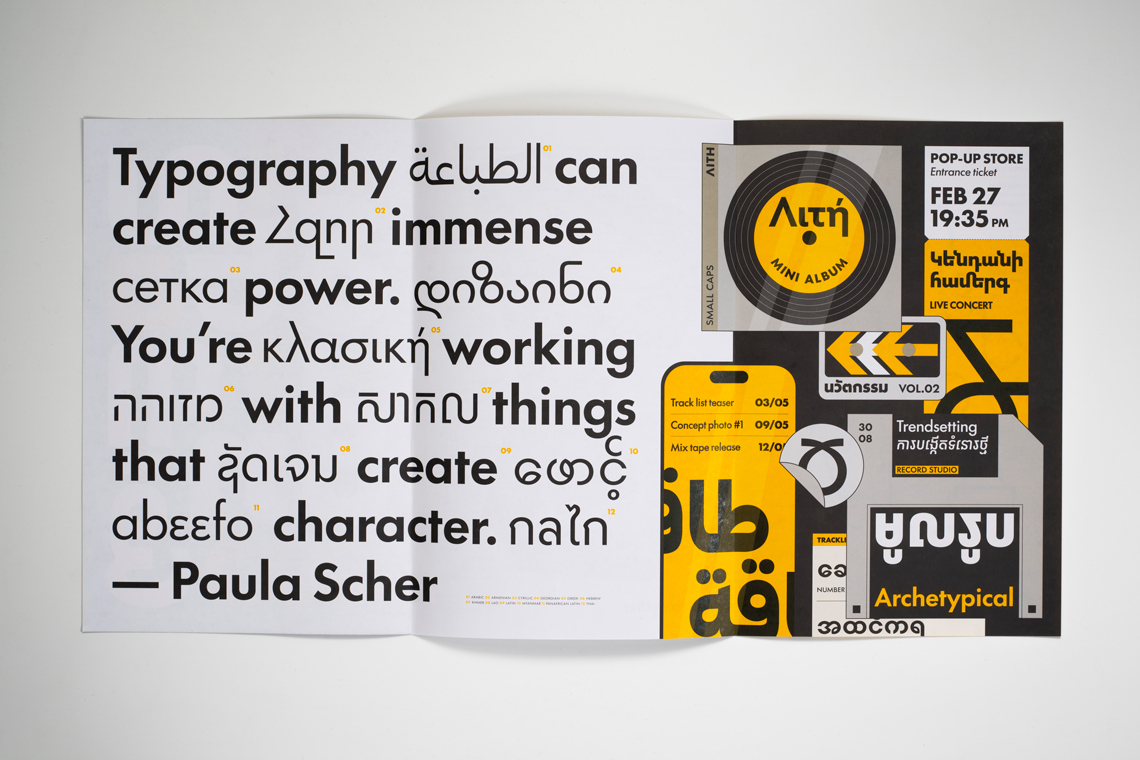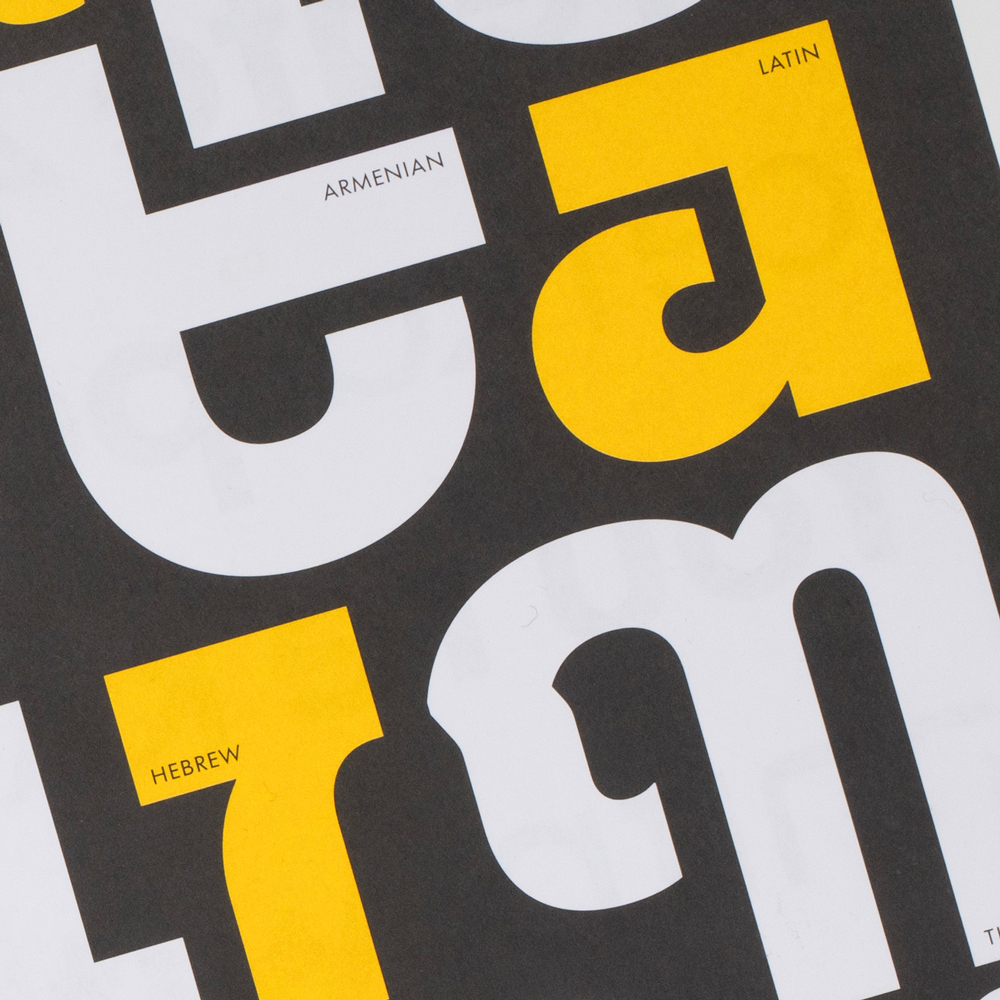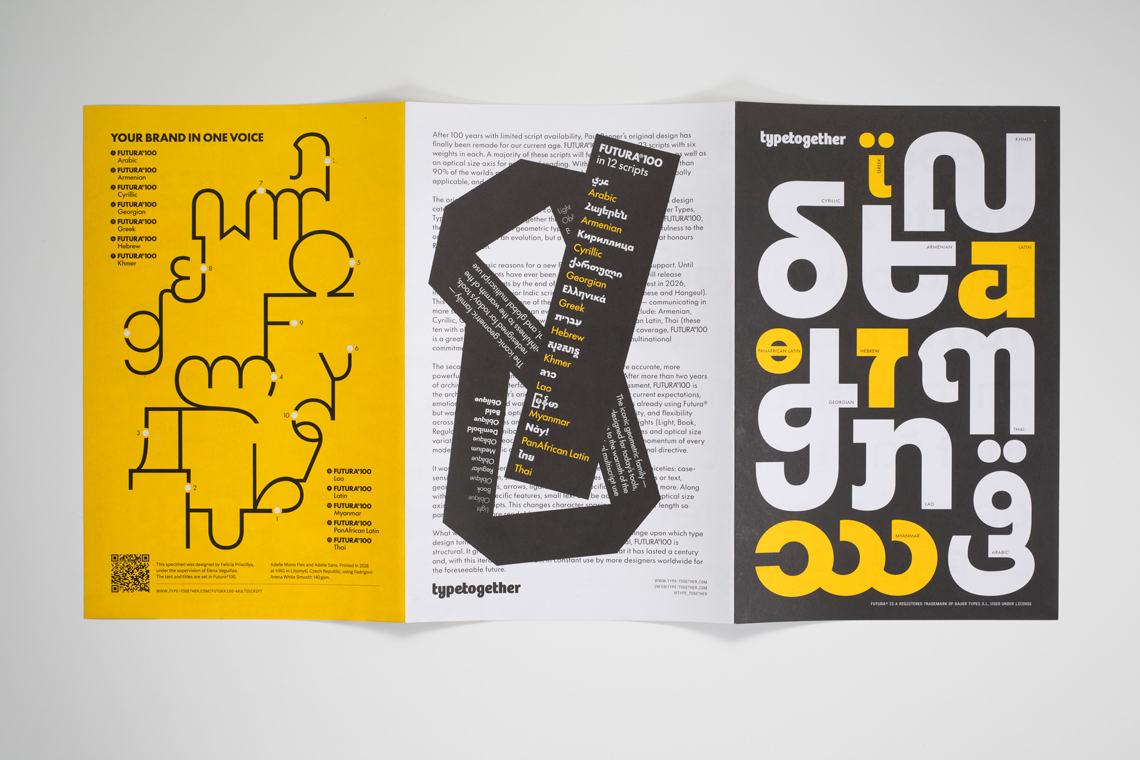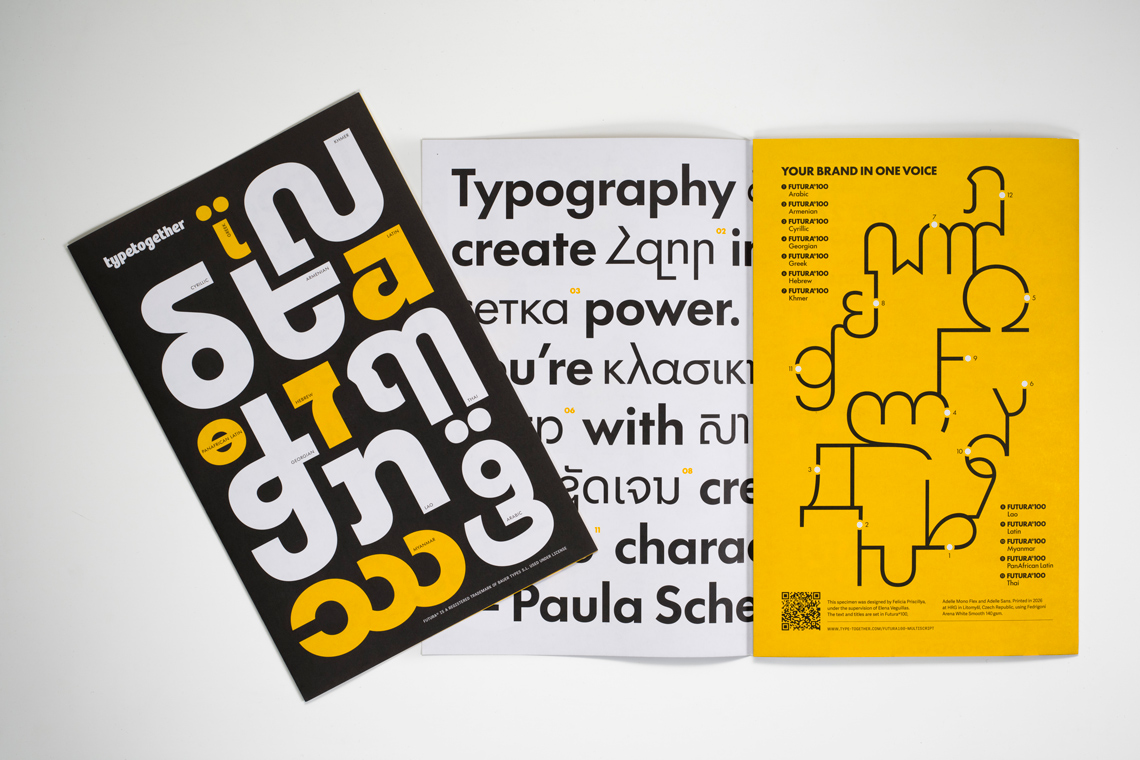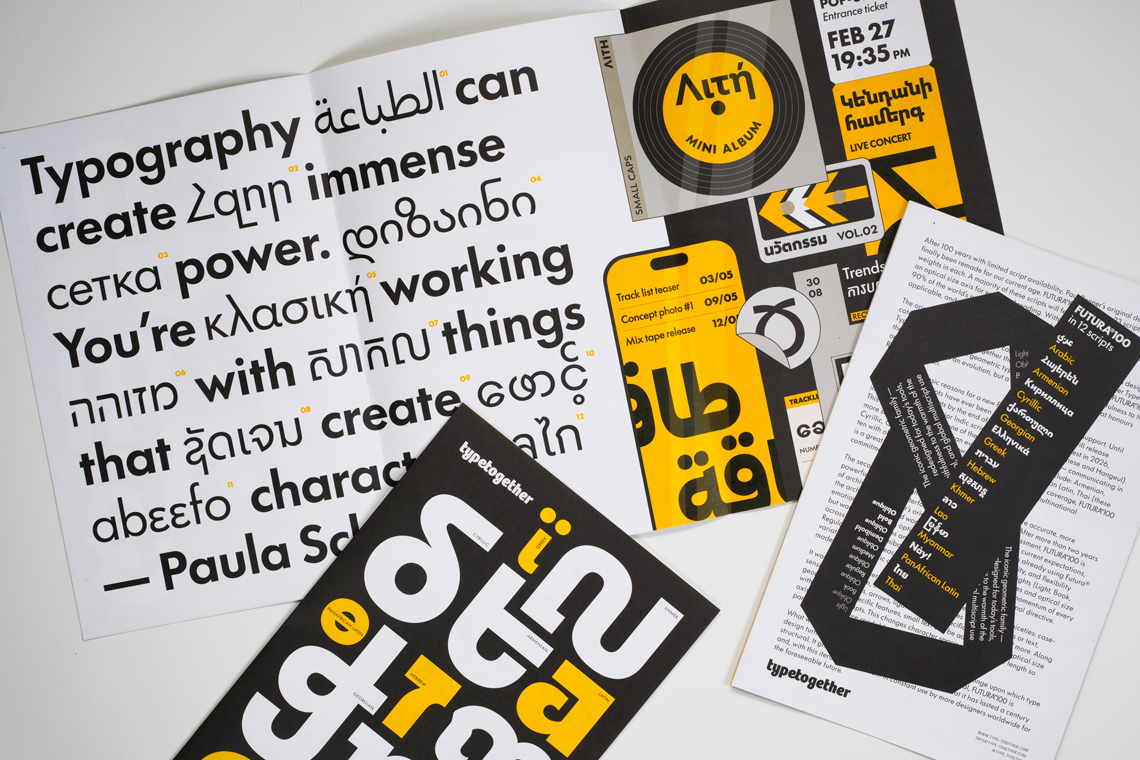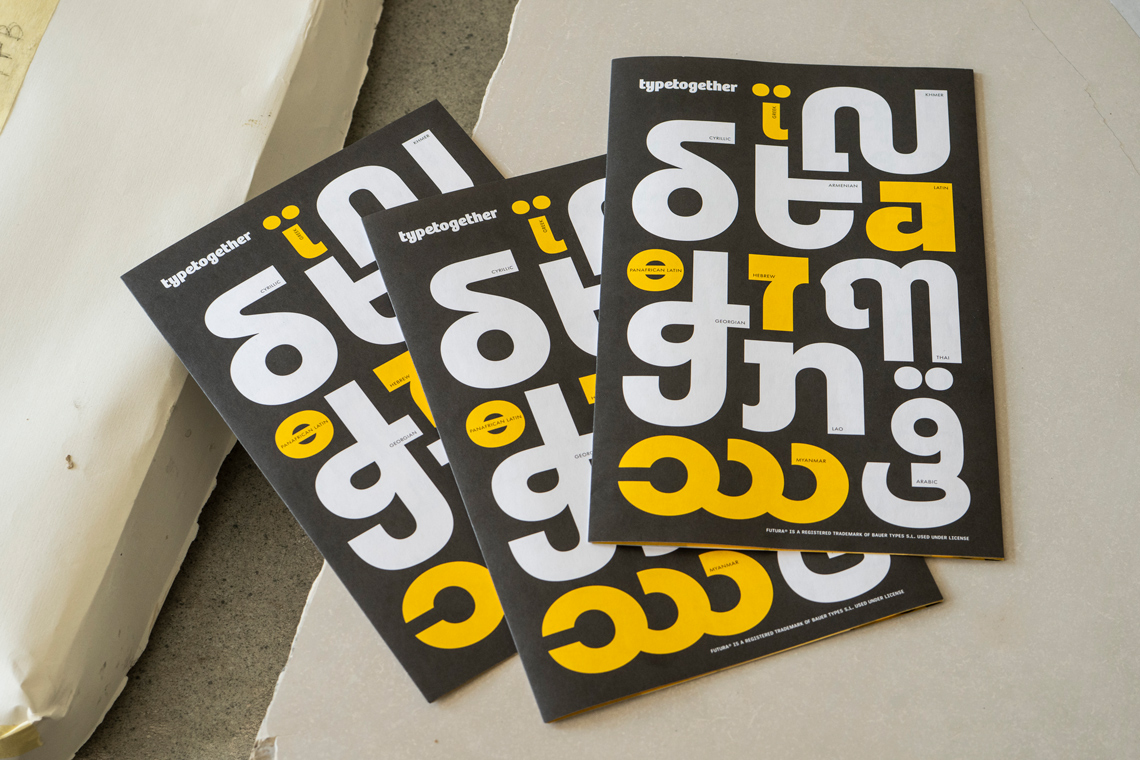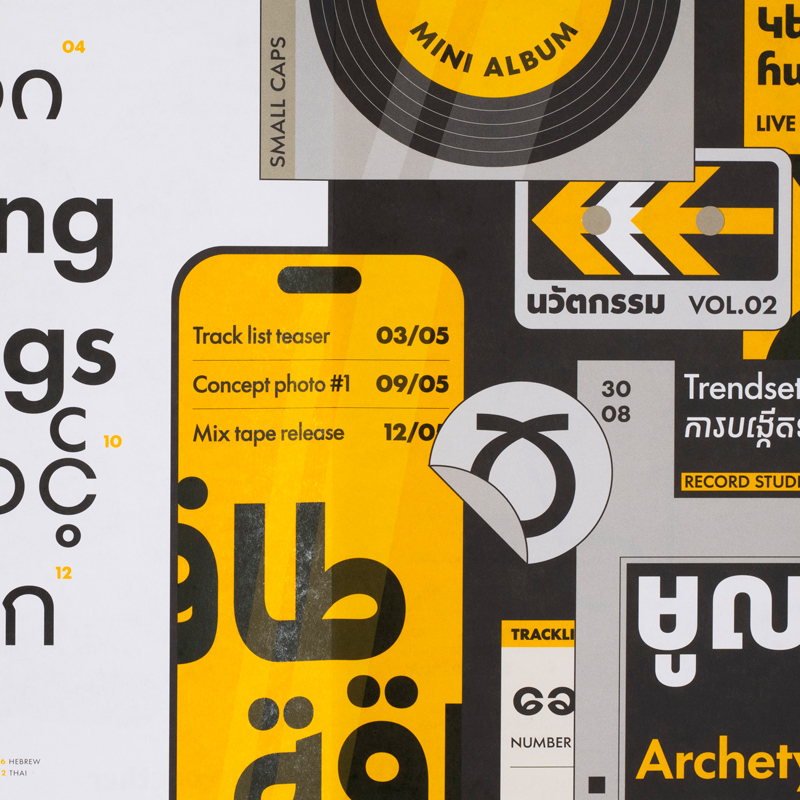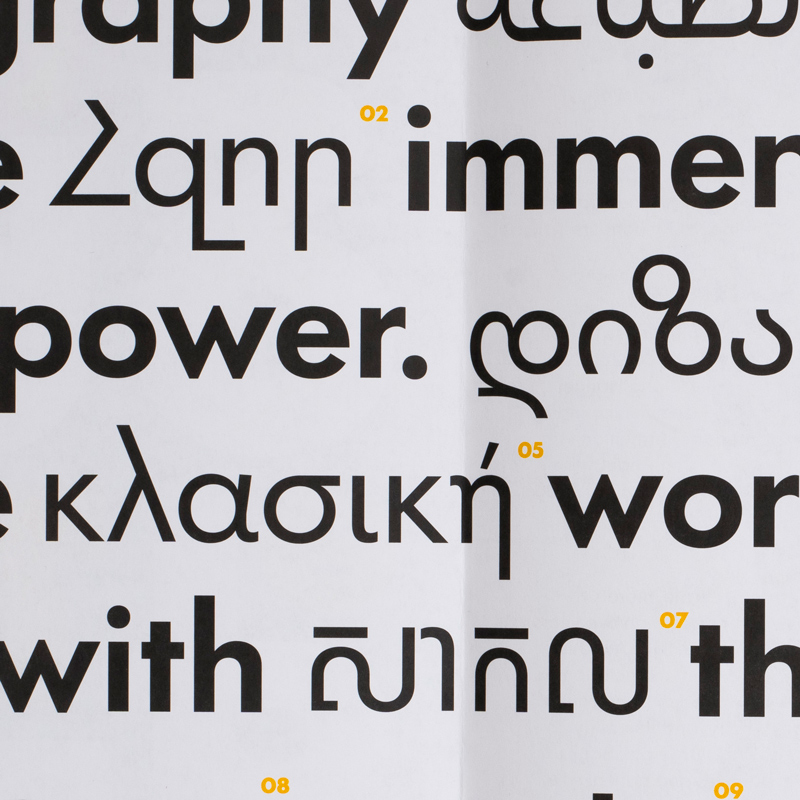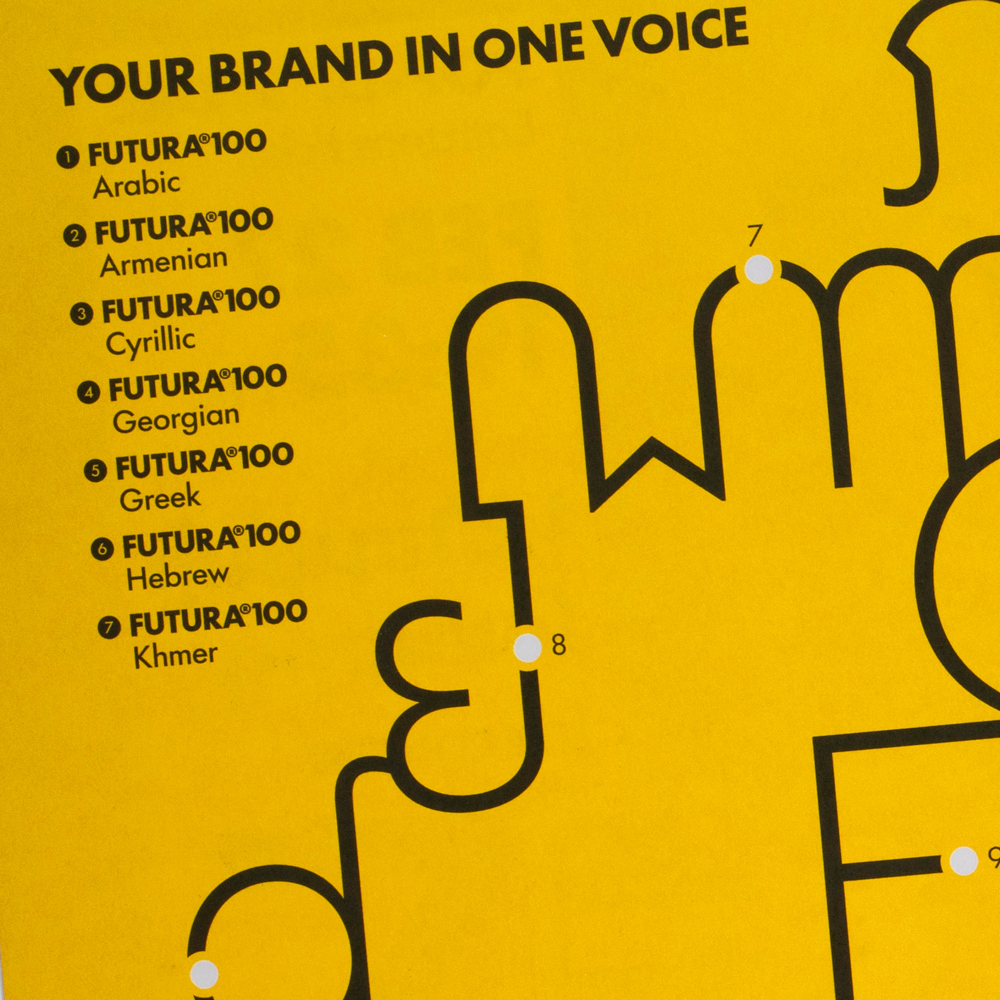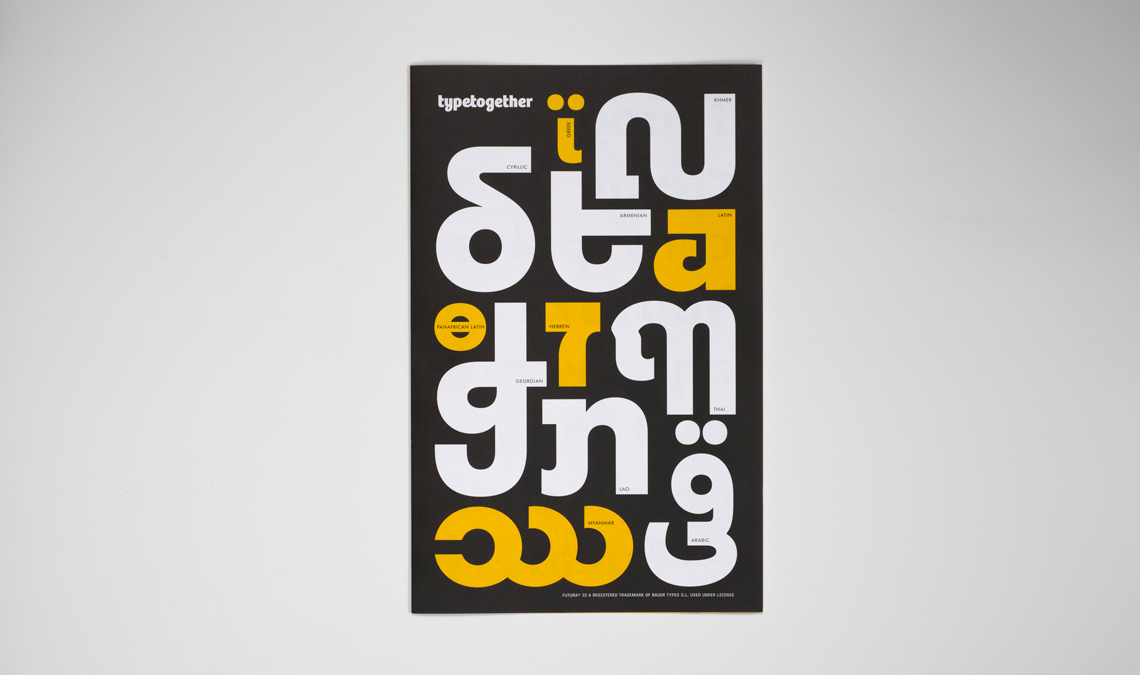
Futura®100 specimen
Futura®100 expands Paul Renner’s massively popular geometric sans to 23 scripts for multinational branding, digital devices, and modern publishing demands. To mark Futura®100’s first release of 12 scripts from Arabic to Thai, we commissioned this printed specimen, designed by our talented graphic designer Felicia Priscillya under the supervision of Elena Veguillas. Just cover the shipping/handling and it’s yours for free.